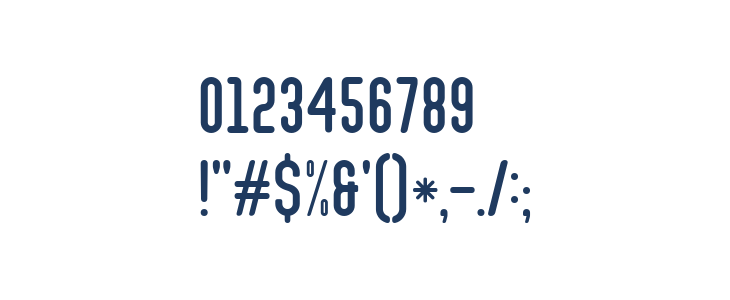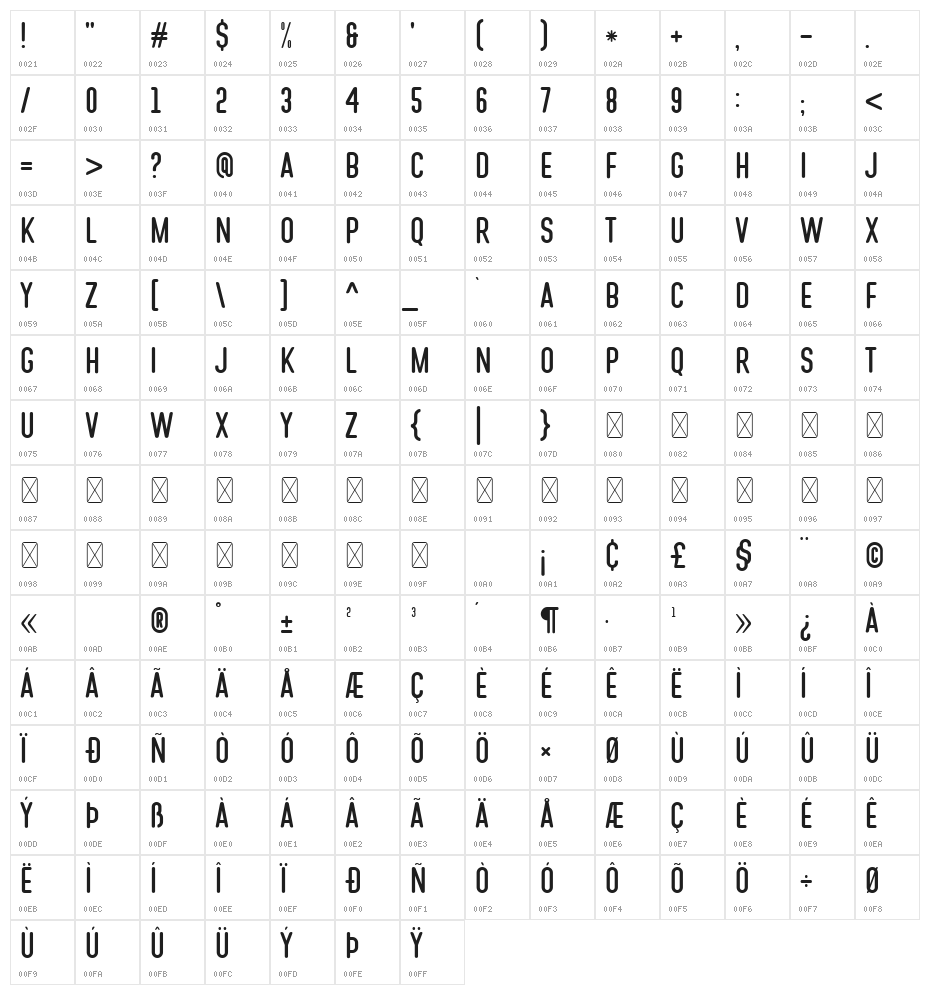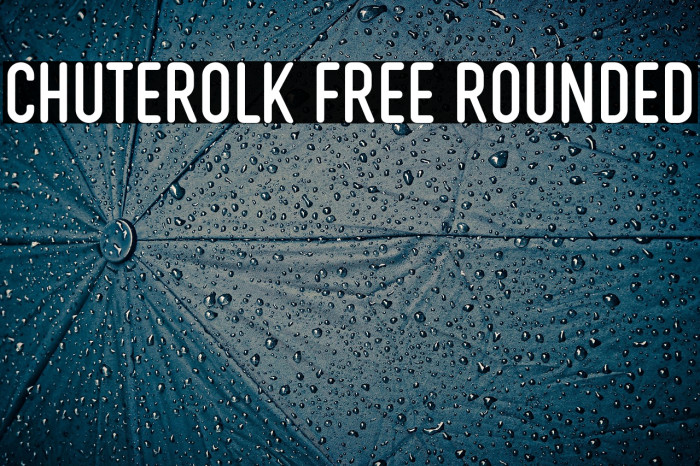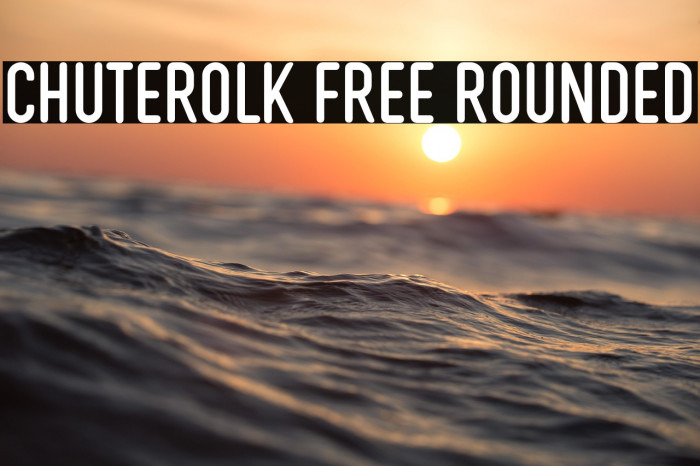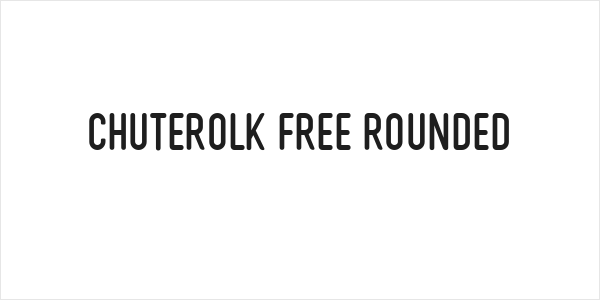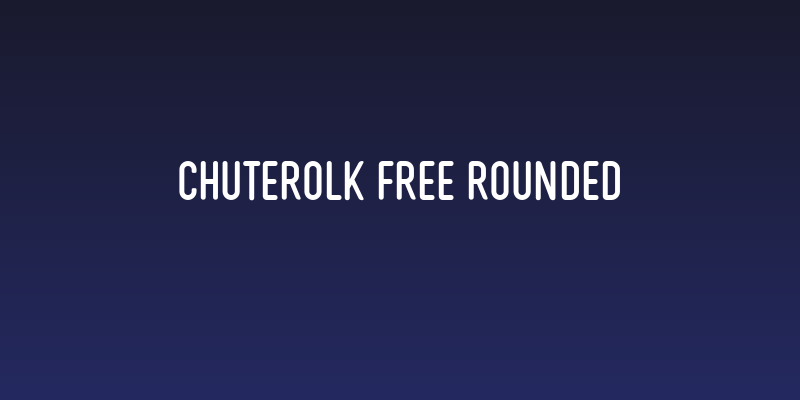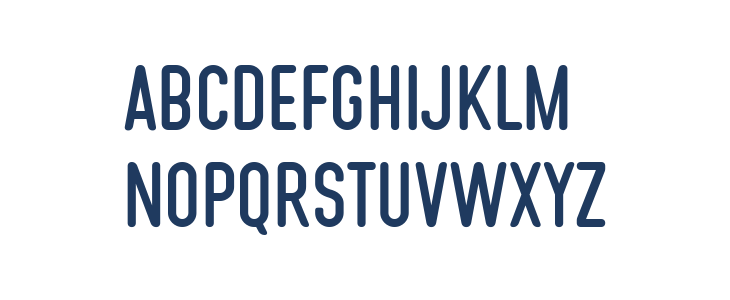
CHUTEROLK Free Rounded Font
CHUTEROLK Free Rounded Description
This font features a clean, modern aesthetic with rounded edges that give it a friendly and approachable feel. The characters are evenly spaced, providing a balanced and harmonious look. Its sans-serif style ensures clarity and readability, making it suitable for a variety of applications. The uniform stroke width contributes to its contemporary appearance, while the rounded terminals soften the overall look, adding a touch of warmth. This font is versatile and can be used effectively in both digital and print media. Its simplicity and elegance make it an excellent choice for projects that require a modern yet inviting typeface.